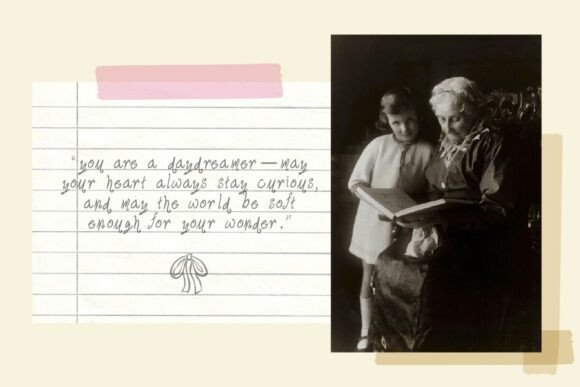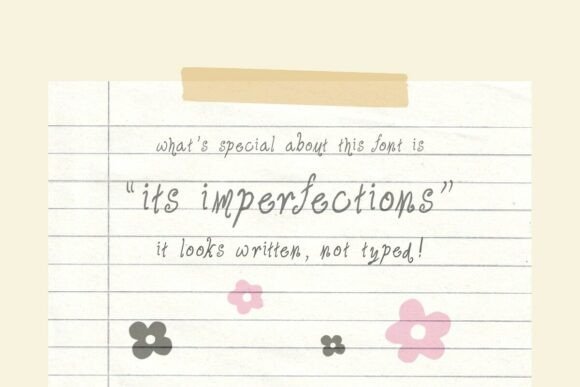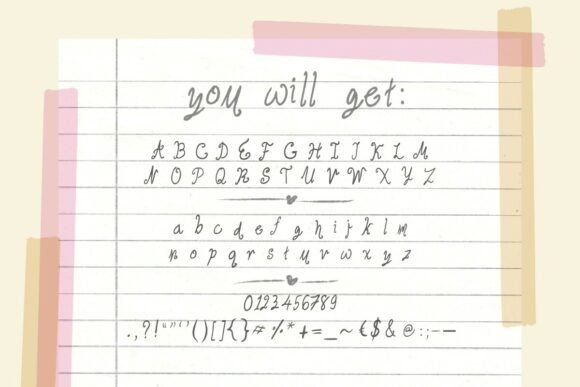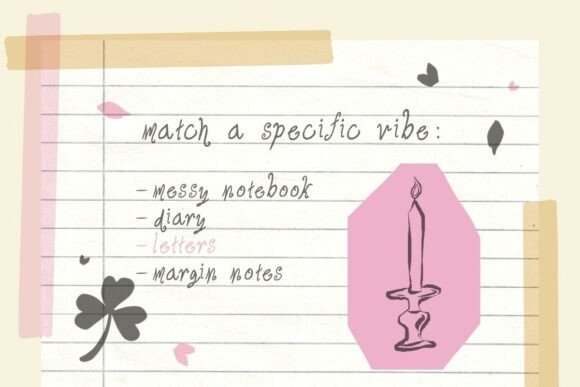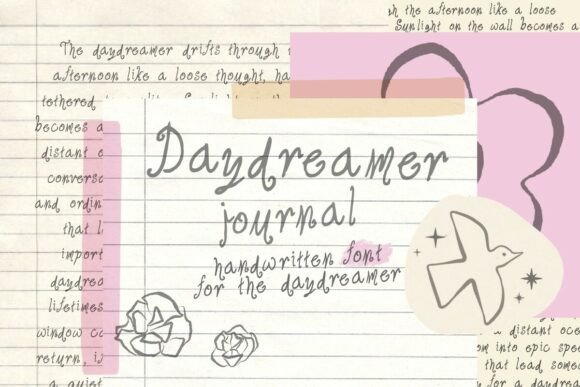
Discover the Whimsical Charm of the Daydreamer Journal Font
Step into a world of quiet reflection and artistic whimsy with the Daydreamer Journal font, a typeface designed to capture the fleeting thoughts of a wandering mind. This beautiful font perfectly emulates the look of careful, cursive handwriting on a lined notebook page, offering an authentic, intimate feel that digital designs often lack.
The Essence of Daydreamer Journal Font
The Daydreamer Journal typeface boasts delicate loops and a slightly slanted posture, evoking a sense of nostalgia and warmth. Its elegant, cursive strokes are reminiscent of handwritten journal entries, bringing a personal touch to any digital design. This font is an exquisite choice for digital scrapbooking, personal blogs, and lifestyle branding that seeks a nostalgic, “lived-in” aesthetic.
Whether you are composing a poetic social media caption or designing a custom diary cover, the Daydreamer Journal font provides a soulful backdrop that makes every word feel like a cherished secret. Its versatility and charm make it an ideal choice for various creative projects, including:
• Digital scrapbooking: Add a personal touch to your digital scrapbook pages with the Daydreamer Journal font.
• Personal blogs: Create a unique and inviting atmosphere for your blog with this beautiful typeface.
• Lifestyle branding: Infuse your brand with a sense of nostalgia and warmth, perfect for businesses that value a personal touch.
Aesthetic Inspirations
The Daydreamer Journal font is a dream for creators who love the “cottagecore” or academic aesthetic. This typeface pairs beautifully with soft, paper-textured backgrounds and hand-drawn doodles, creating a visually appealing and cohesive design. To fully embrace its charm, consider combining it with:
• Soft, pastel colors: Muted hues that evoke a sense of calmness and serenity.
• Paper-textured backgrounds: Add a tactile feel to your design with a subtle paper texture.
• Hand-drawn doodles: Whimsical illustrations that complement the font’s playful nature.
Tips for Using Daydreamer Journal Font
To make the most of this beautiful typeface, keep the following tips in mind:
• Use it for body text: The Daydreamer Journal font is perfect for longer blocks of text, such as blog posts or journal entries.
• Mix it with other fonts: Combine it with a sans-serif font for headings to create visual interest.
• Experiment with colors: Try pairing it with a range of colors to find the perfect combination for your design.
The Daydreamer Journal font is a unique and captivating typeface that brings a touch of whimsy and nostalgia to any design. Its delicate loops and slanted posture evoke a sense of intimacy and warmth, making it perfect for creative projects that value a personal touch. Whether you’re a designer, crafter, or simply a lover of beautiful typography, this font is sure to inspire your next creative endeavor.